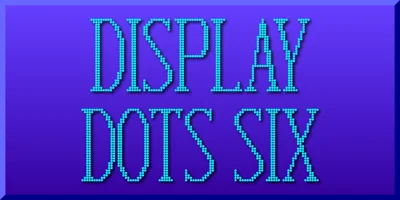
Display Dots Six Font
The Display Dots Six Font is a playful, dotted display typeface perfect for creative headlines, children's book covers, party invitations, quirky branding, and fun posters. Its unique dotted style adds a lively and whimsical touch.
What makes the Display Dots Six Font so exciting is its distinctive dotted design that captures attention and adds a friendly, approachable vibe. This font is ideal for projects that want to convey joy and creativity.
The Display Dots Six Font family includes Regular and Bold weights, giving designers the versatility to create dynamic and engaging typography.